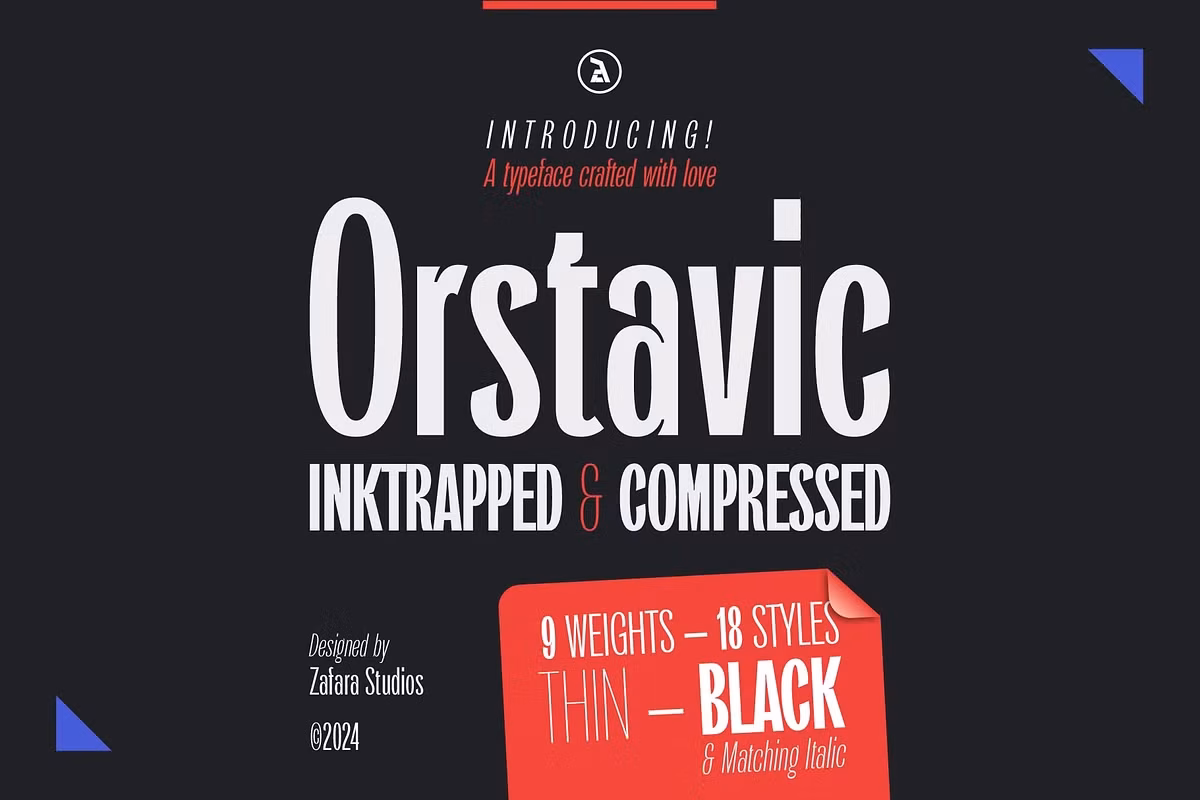
Push the limits of modern typography with Orstavic – Inktrapped & Compressed Font Free Download. This unique typeface features compressed proportions and striking inktraps, making it a perfect fit for cutting-edge editorial design, tech branding, posters, album covers, and bold digital layouts.
Orstavic stands out with its sleek form and high visual impact. The inktraps add character and improve legibility at smaller sizes, while the compressed width makes it ideal for fitting strong headlines into tight spaces. It includes uppercase characters, numbers, punctuation, and multilingual support—ideal for testing experimental and stylish compositions.